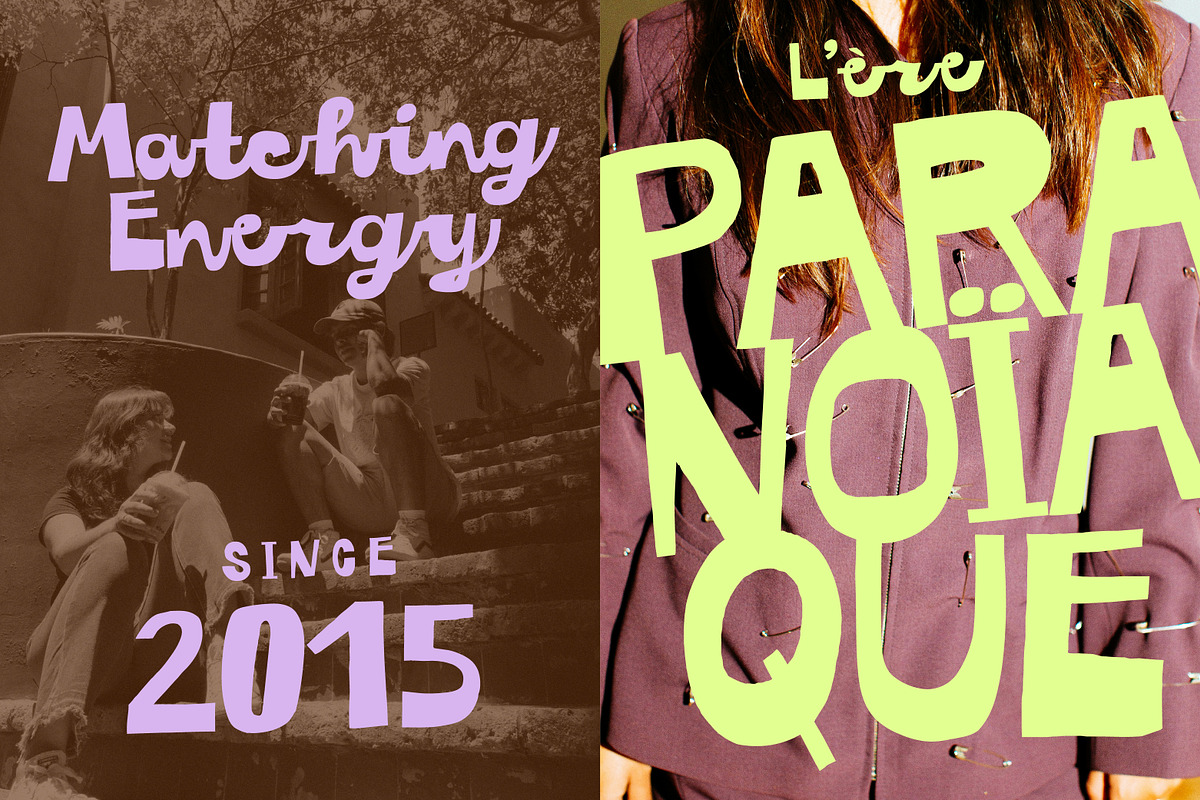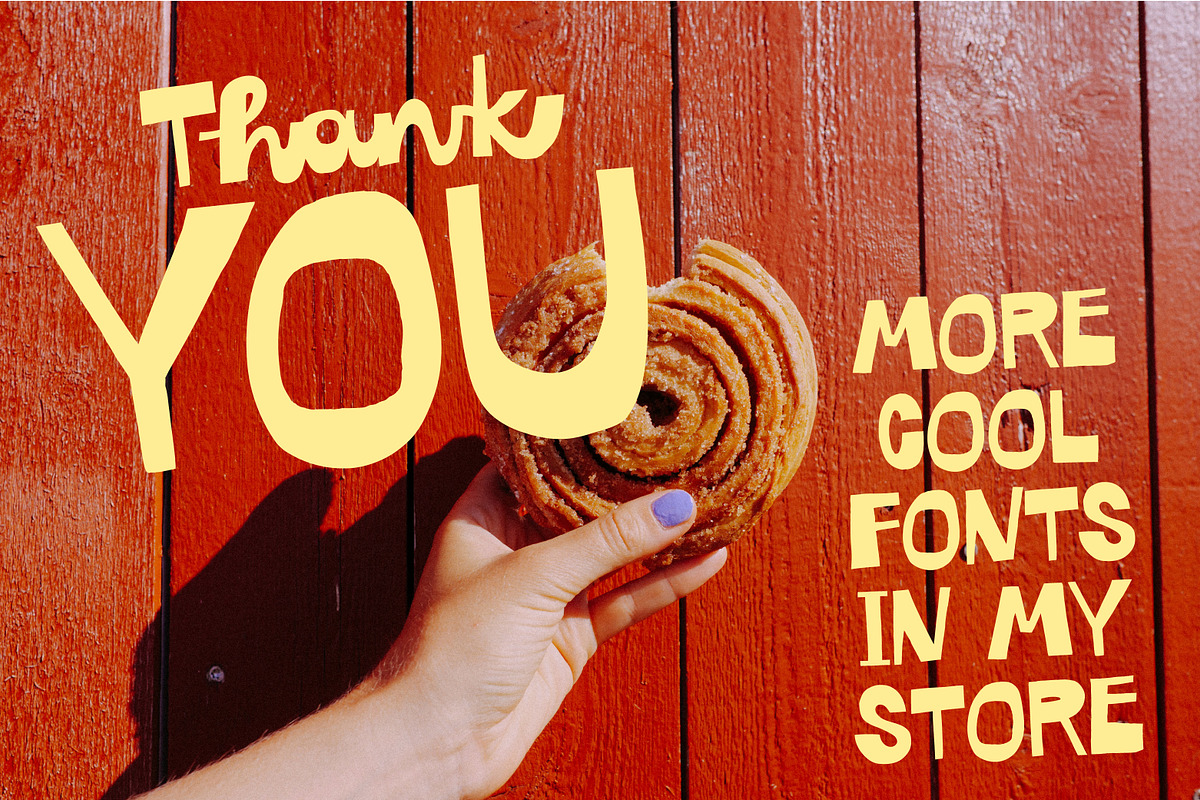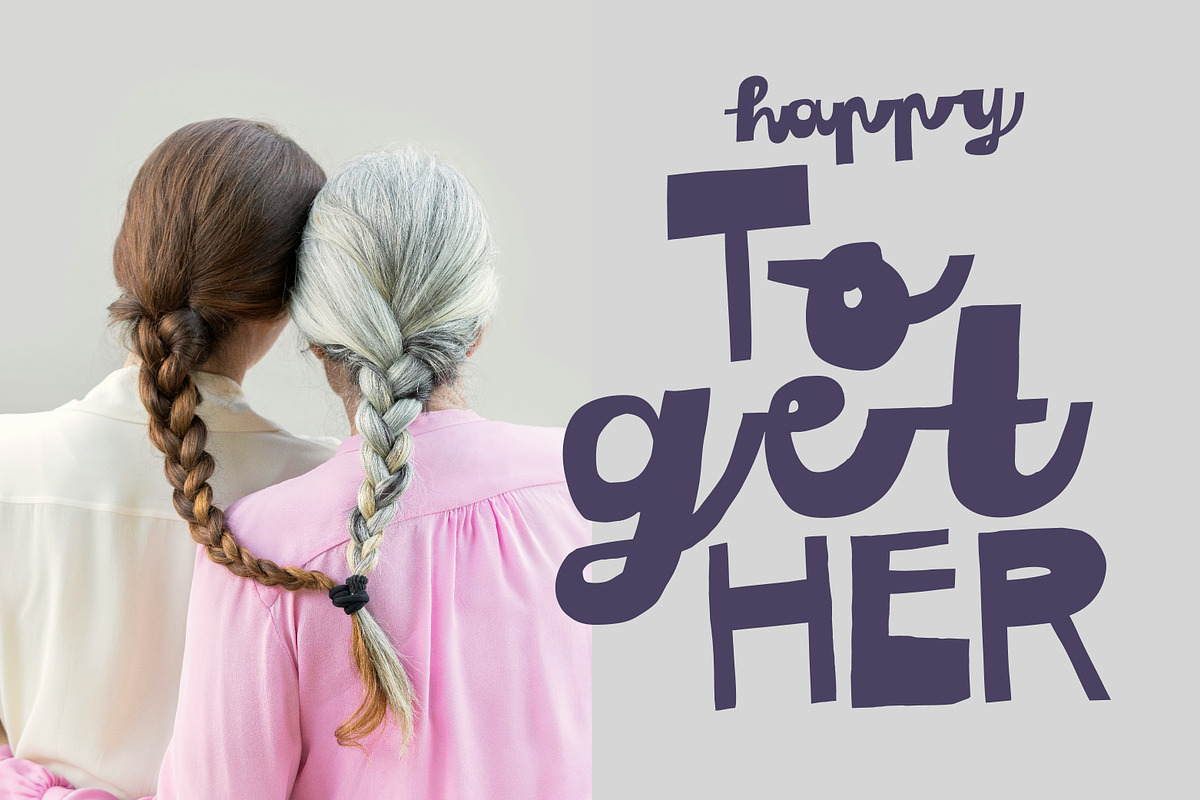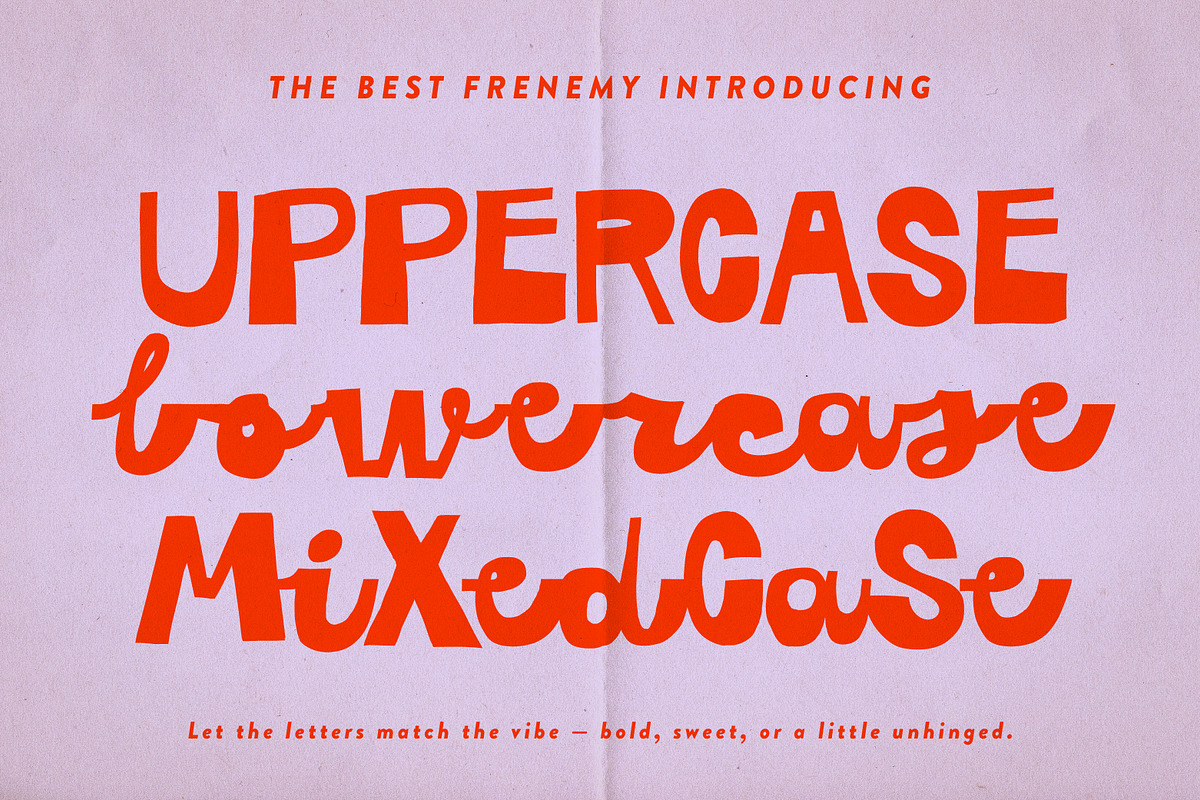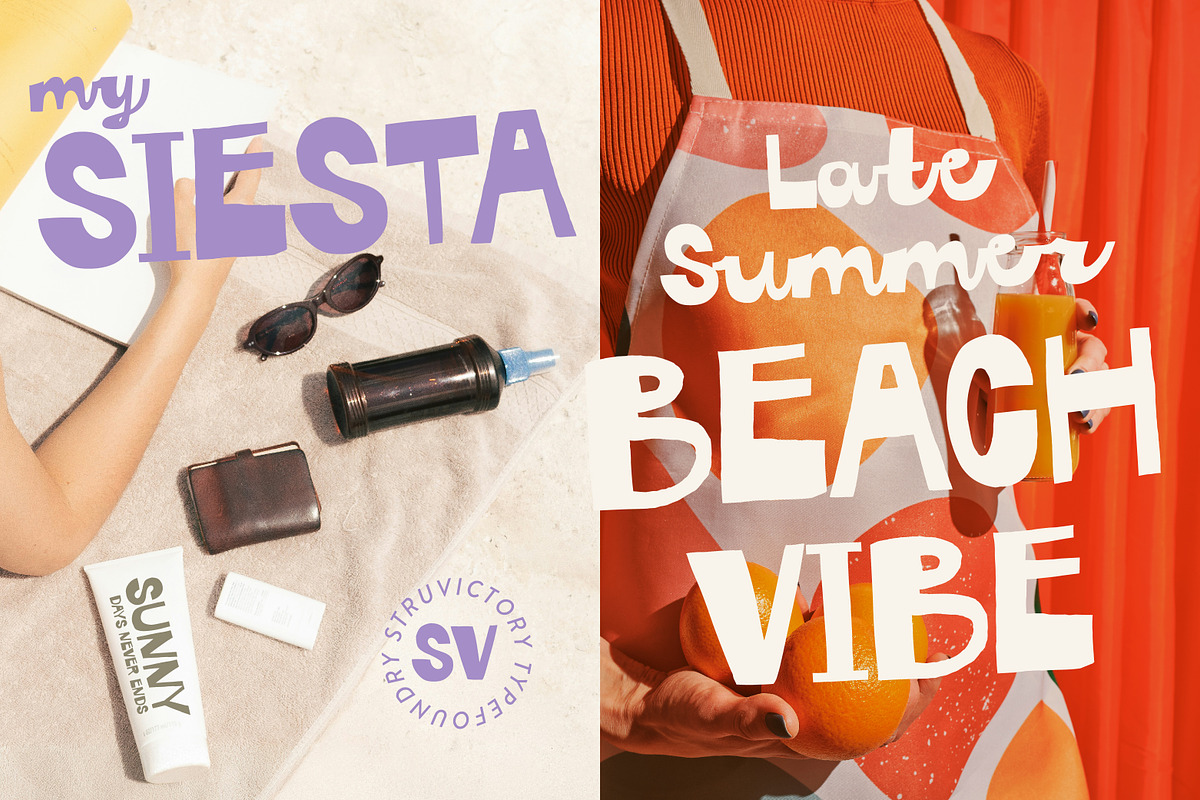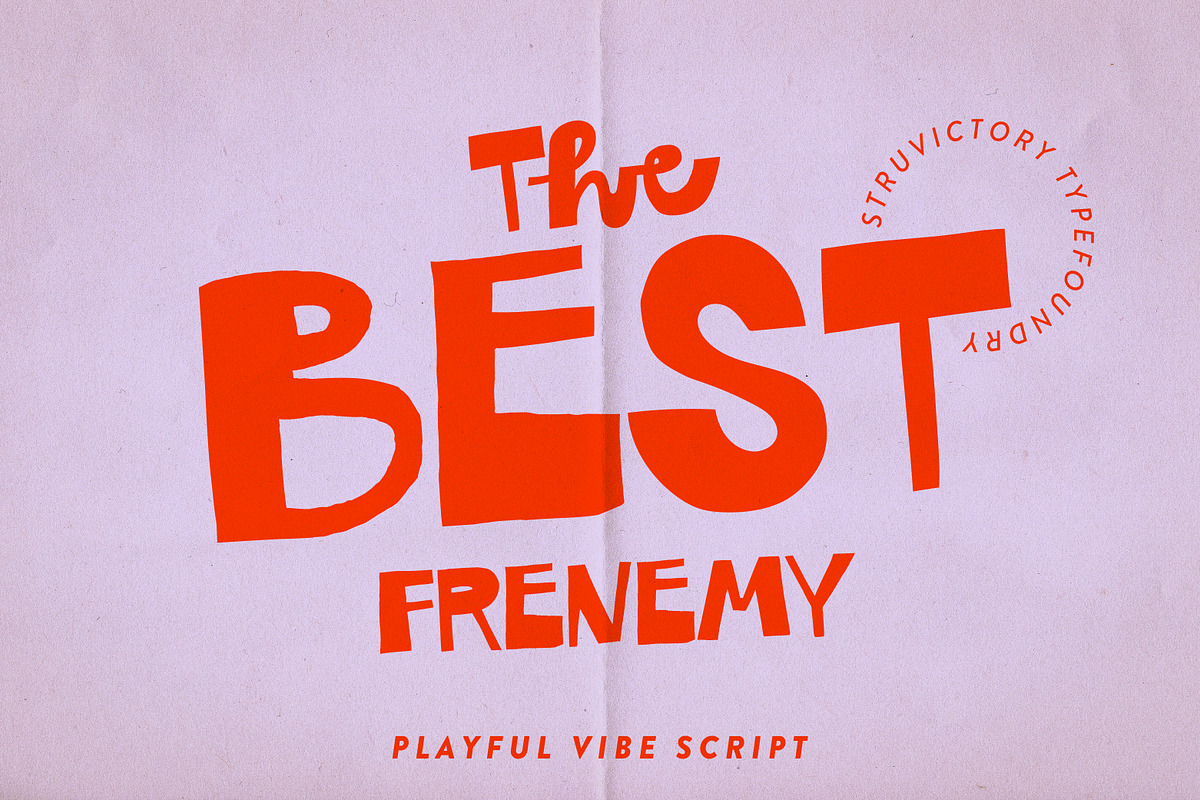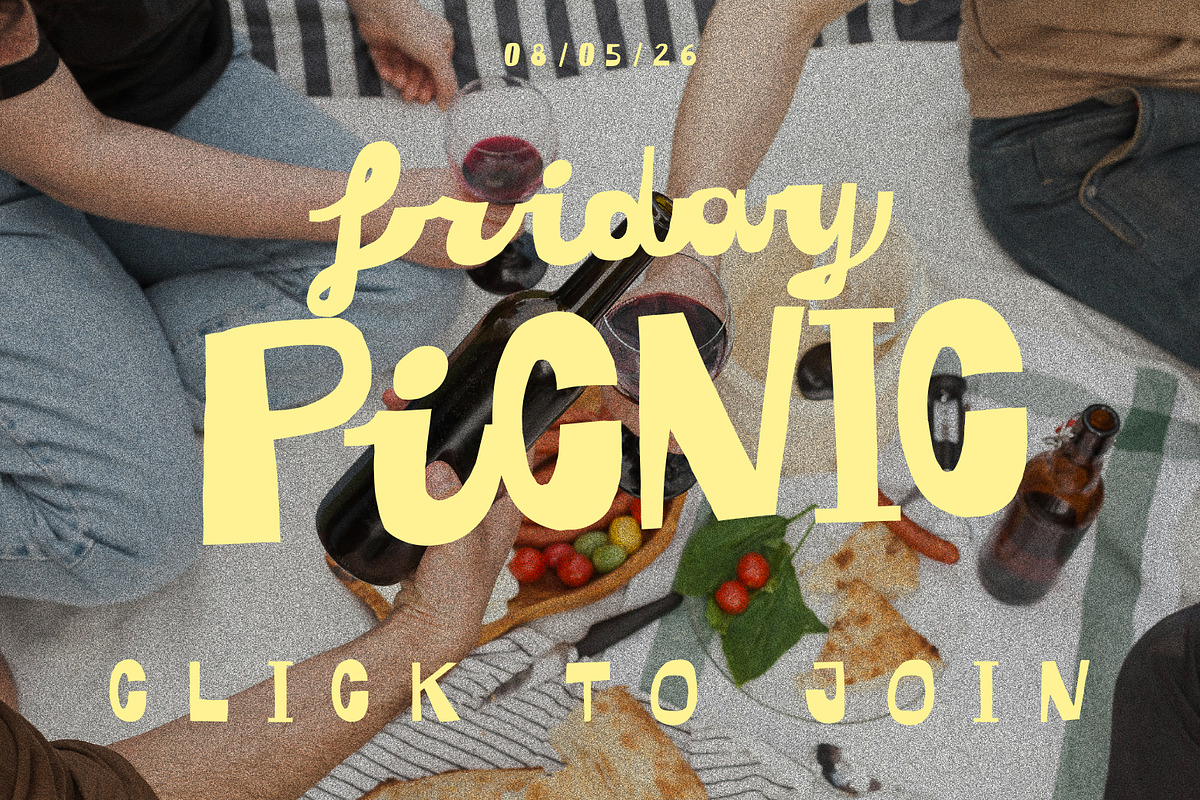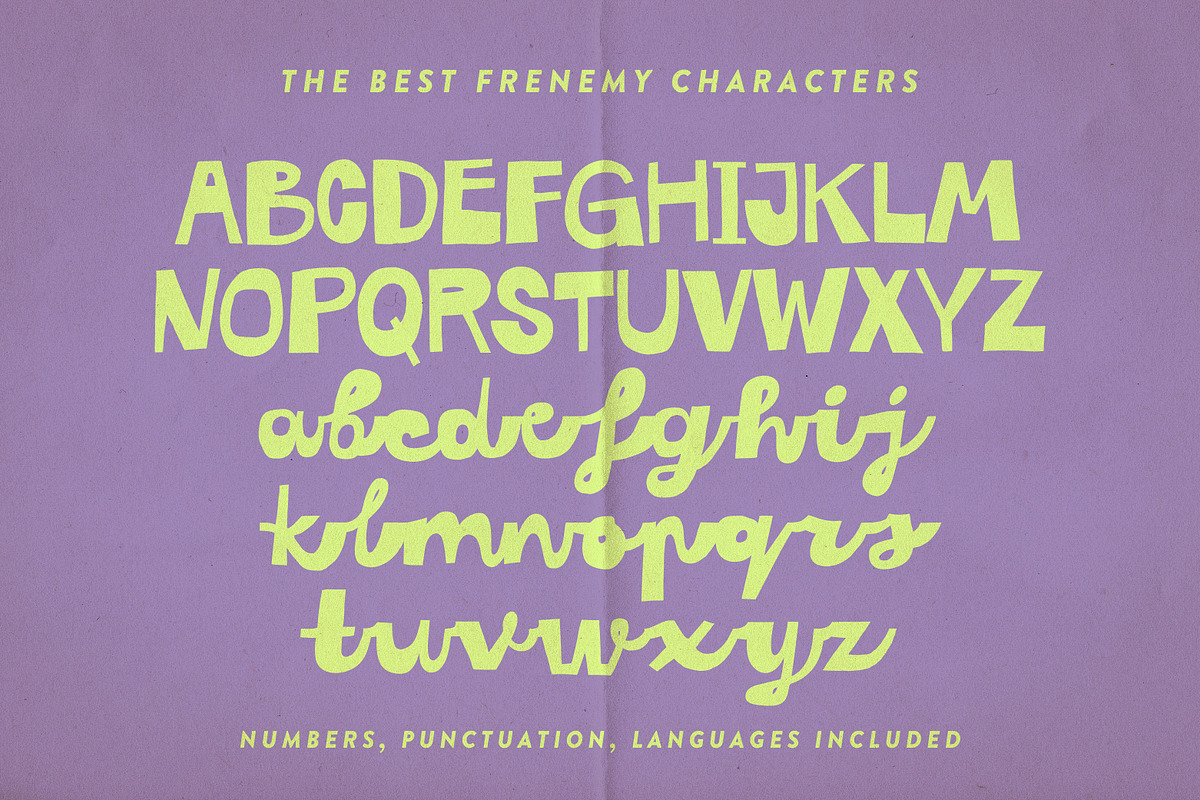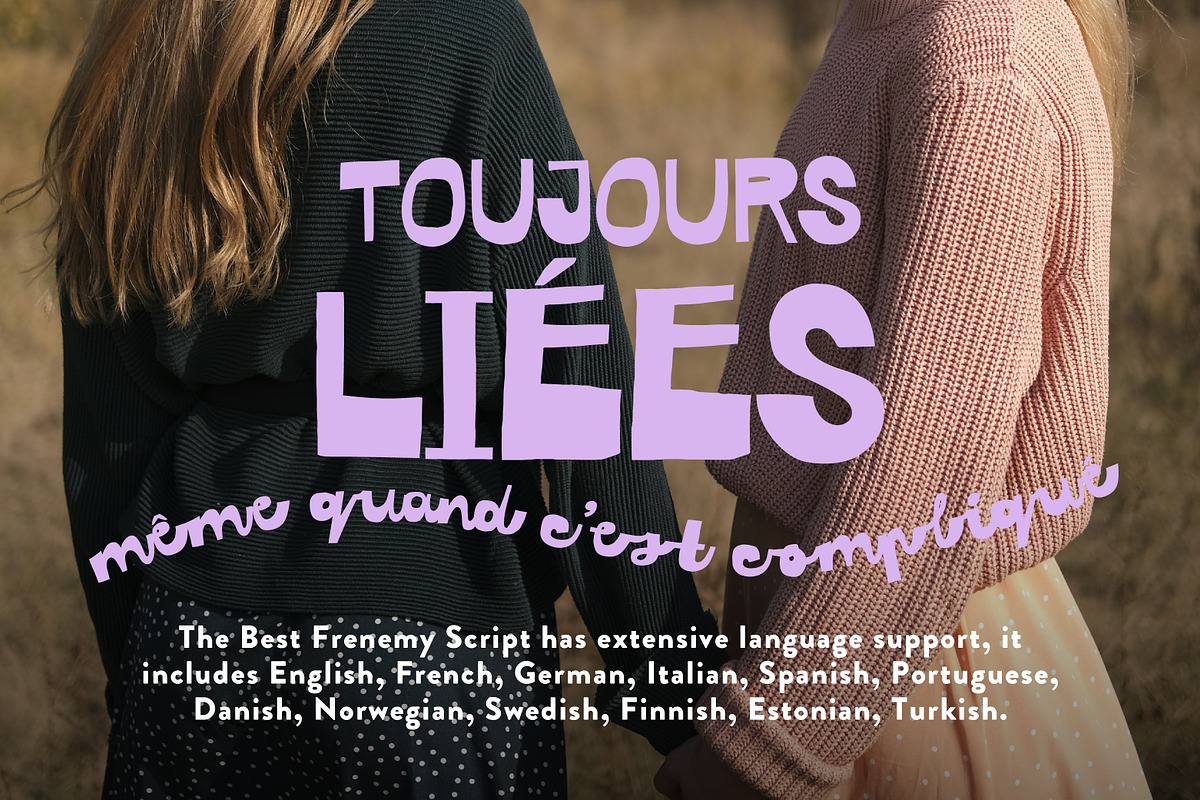
Best Frenemy Playful Vibe Script
The Best Frenemy is a bold and playful font that pairs a handwritten sans serif uppercase with a lively, flowing lowercase script. Designed for expressive design projects, this font balances bold energy with a handwritten twist. Perfect for trendy branding, Y2K and Gen Z-inspired graphics, social media carousels, t-shirts, stickers, journals — basically, anything that calls for vibes.